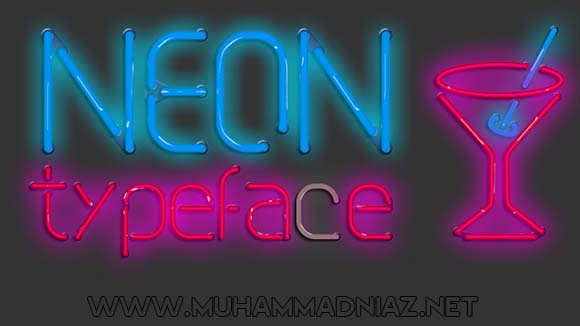
Neon Typeface Font Free Download
Neon Typeface is a complete pack to use in your projects. It features a detailed Neon-wise typeface, bicolor signs and their matching mounting elements carefully crafted to create a realistic feel. Also, 7 Photoshop Smart Objects files are added to help you get nice effects really quick. Feel free to play with the effects to get your own style!